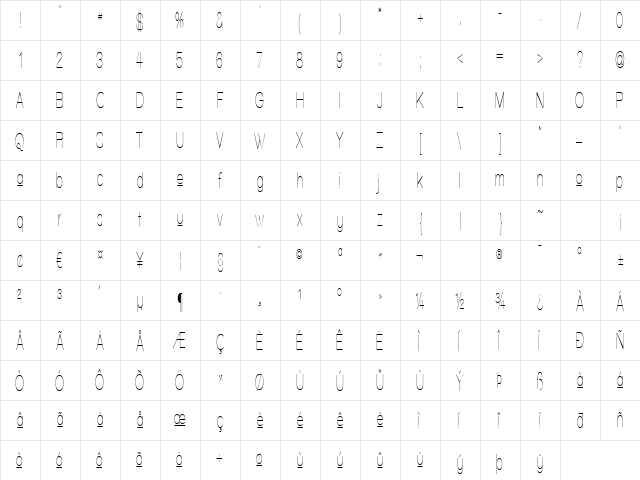
Walkway Upper UItraCondensed Regular
Design Context for Walkway Upper UItraCondensed Typeface
Walkway Upper UItraCondensed is a composed and adaptable typeface that performs quietly and consistently across a wide range of design contexts. Its narrow stance lets it pack a punch even in space-constrained designs.